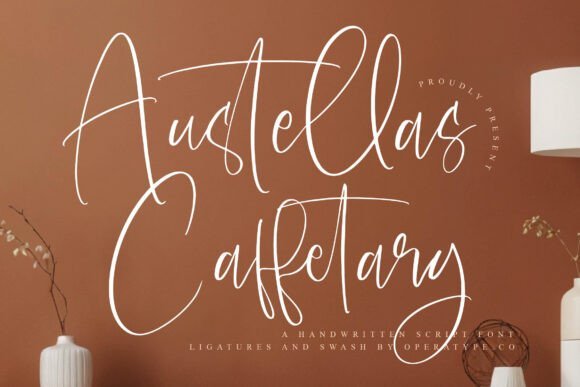
Introduction to Austellas Caffetary Font
🌟 Elegant & Versatile Script Font for a Luxurious and Captivating Touch 🌟 Are you looking for a font that adds a touch of luxury and elegance to your design projects.
Introducing Austellas Caffetary, a script font crafted with a flowing and sophisticated style Each character is uniquely designed to mimic natural handwriting, giving your text a polished, professional look.
Why Choose Austellas Caffetary Font?
Austellas Caffetary Font offers exceptional quality and versatility, making it a valuable addition to your design toolkit. Whether you’re creating for personal projects or commercial use, Austellas Caffetary Font delivers professional results.